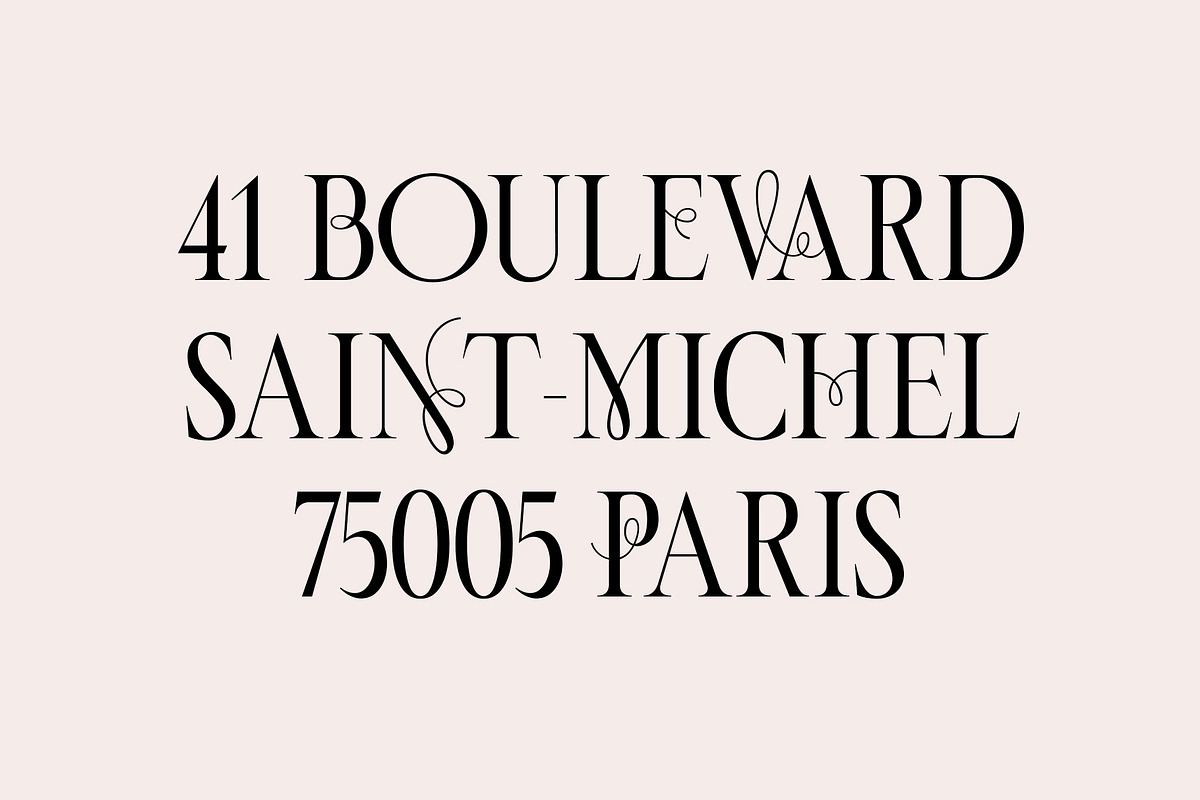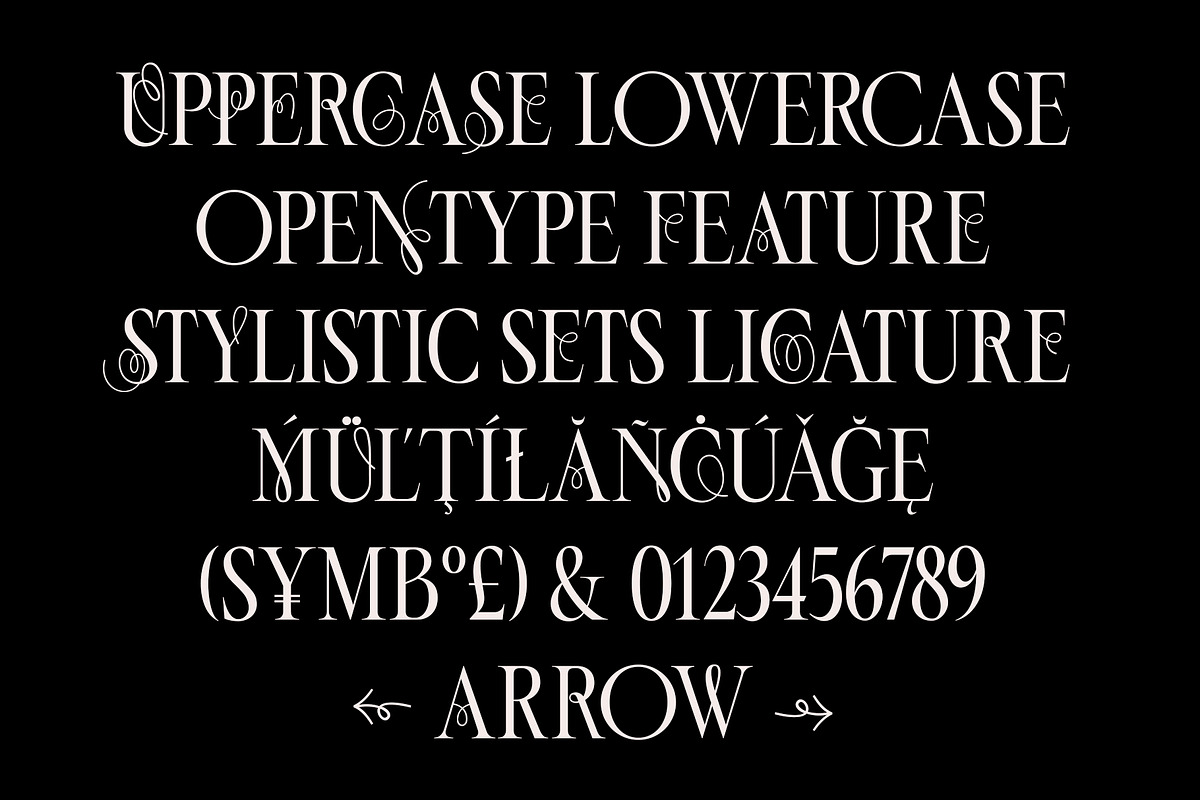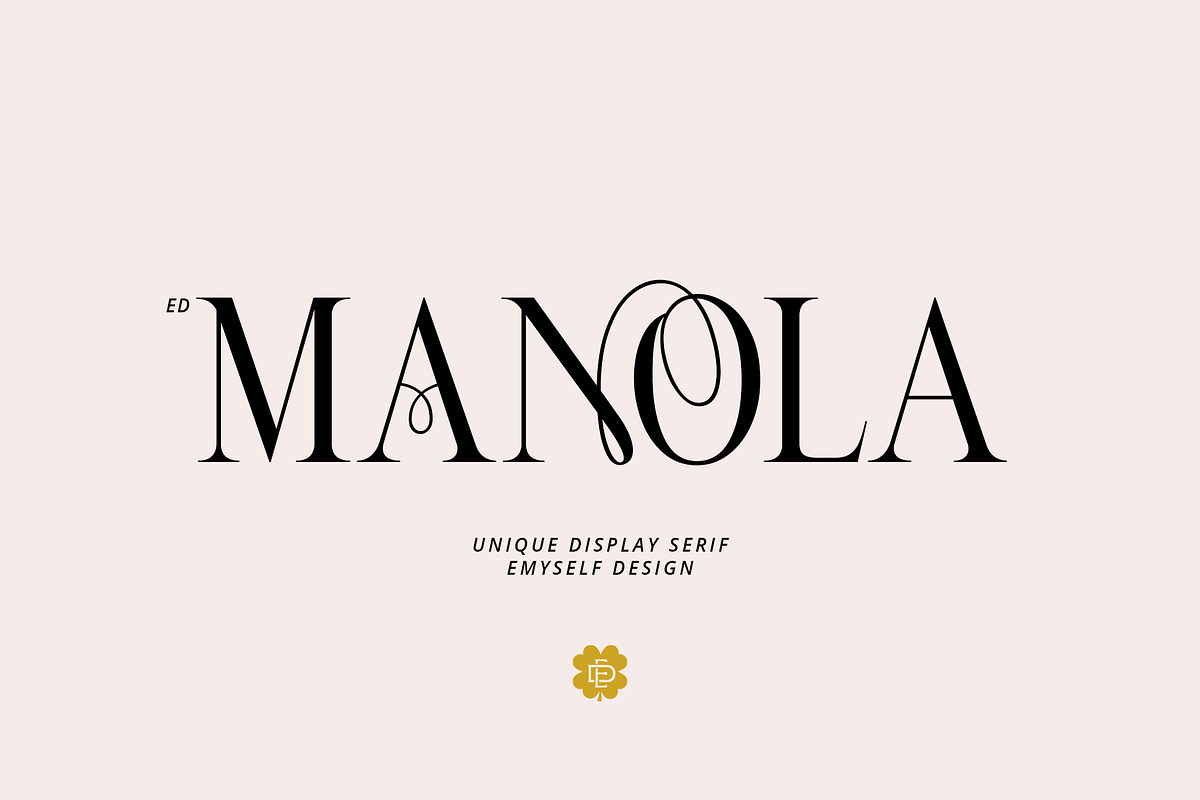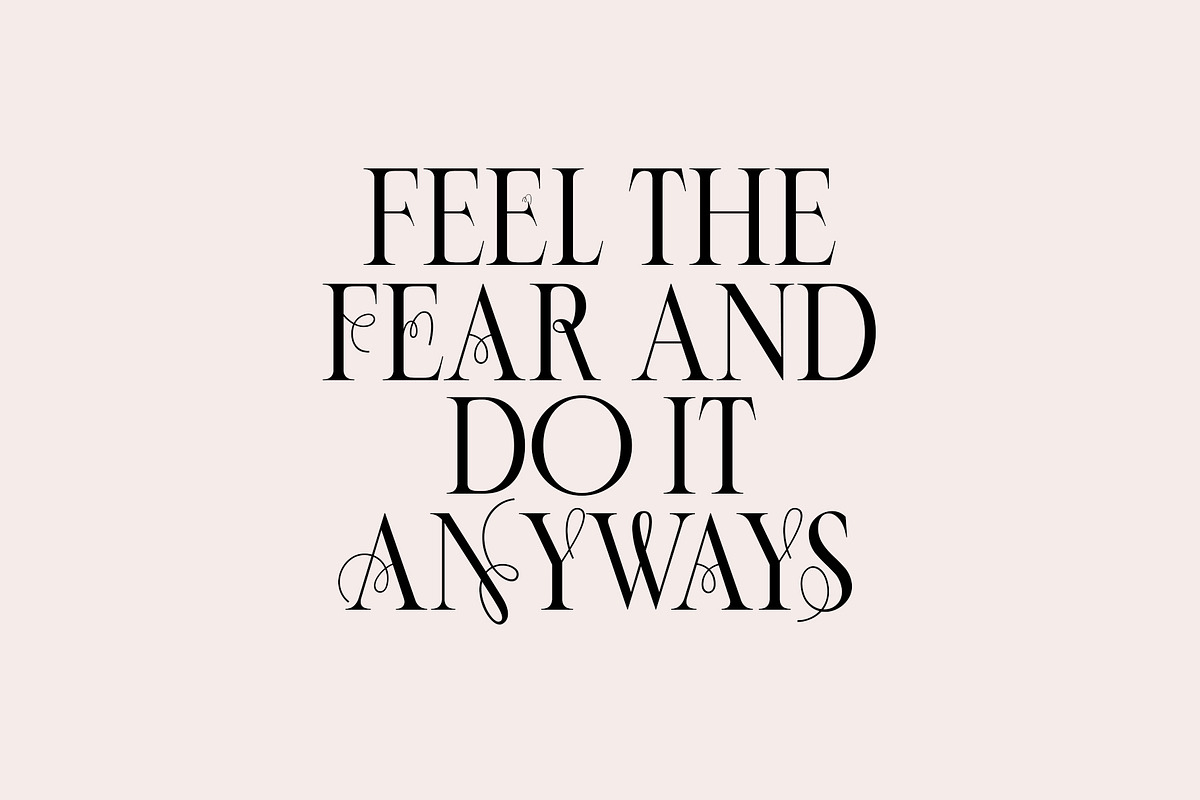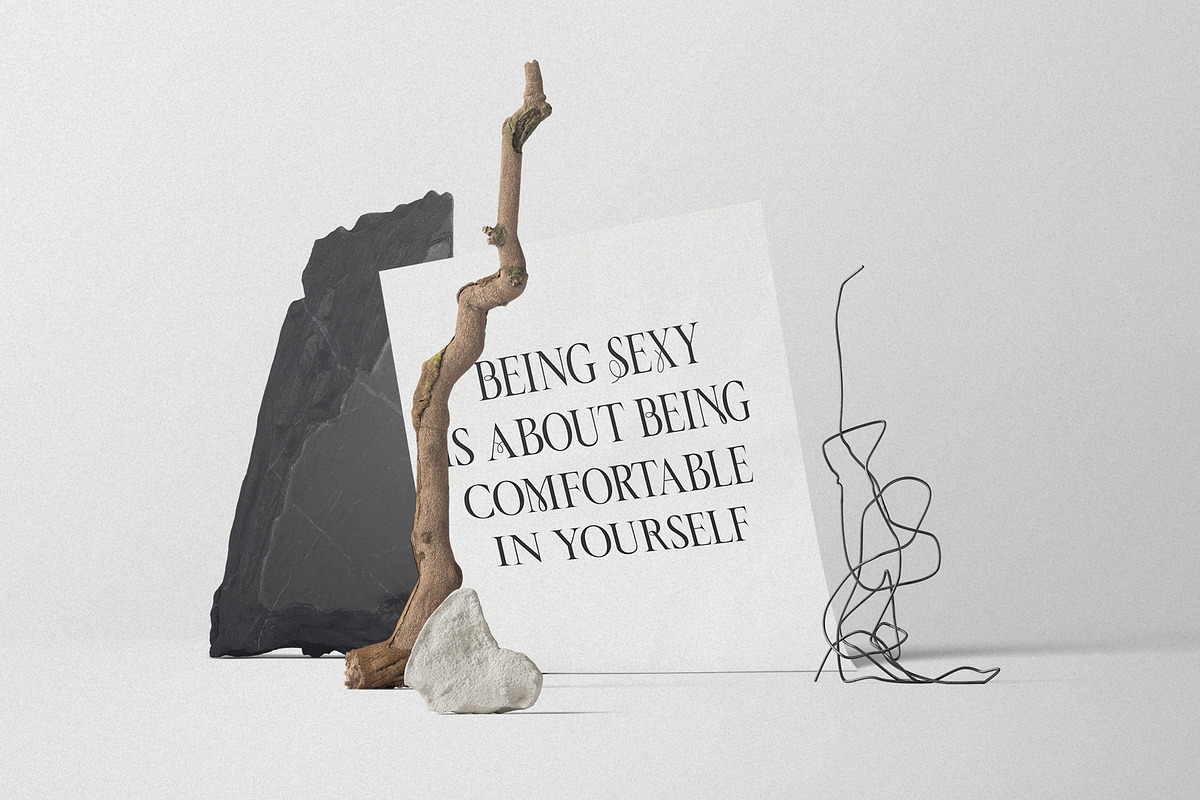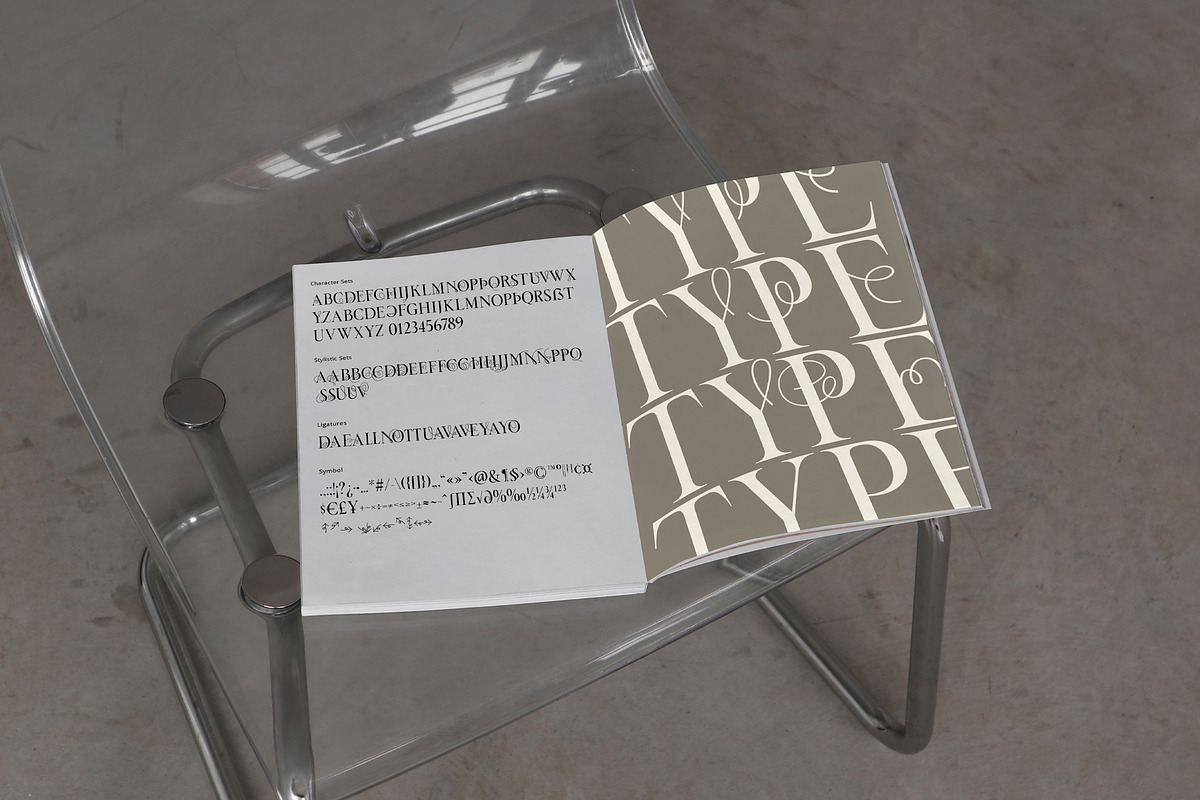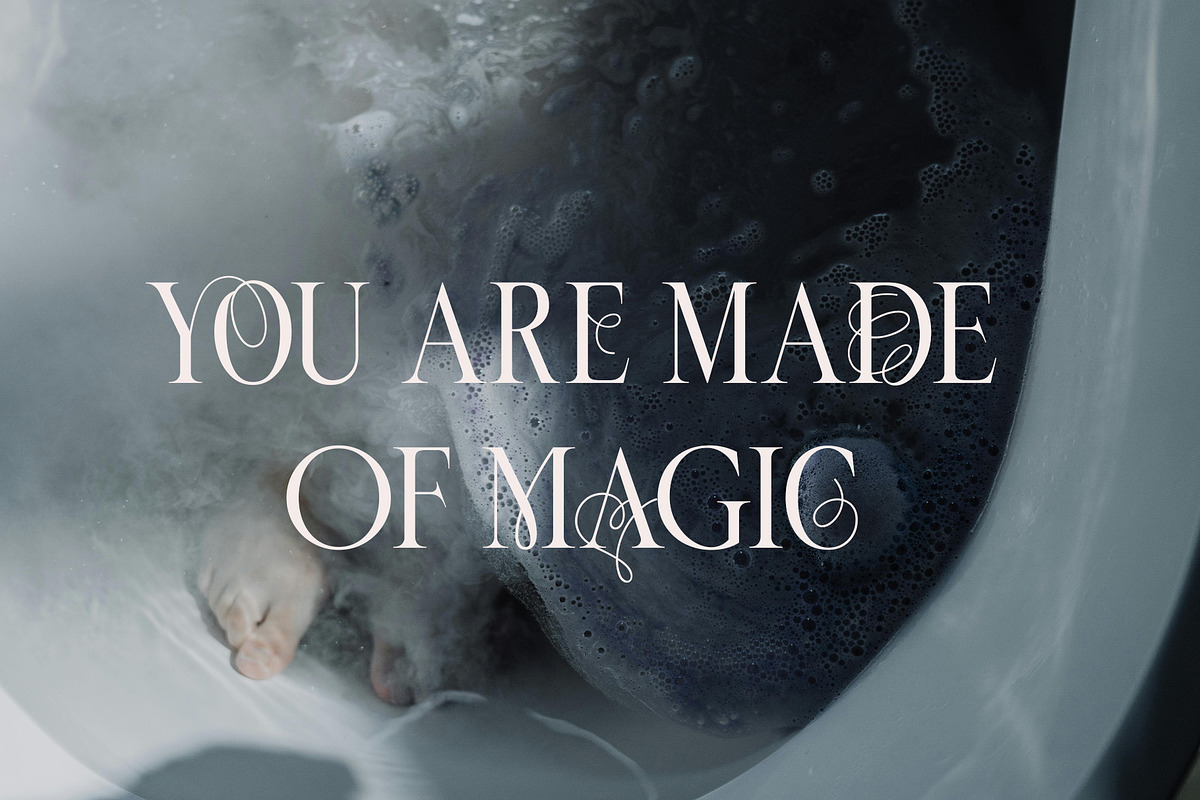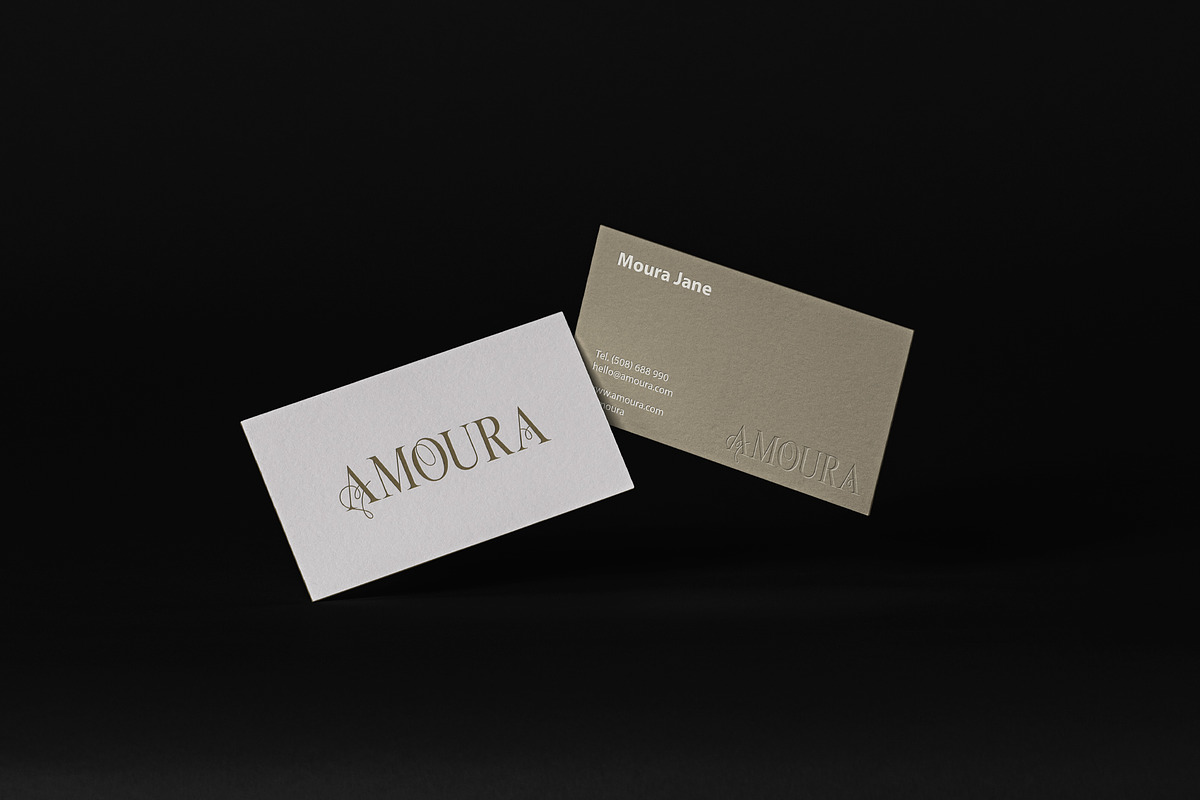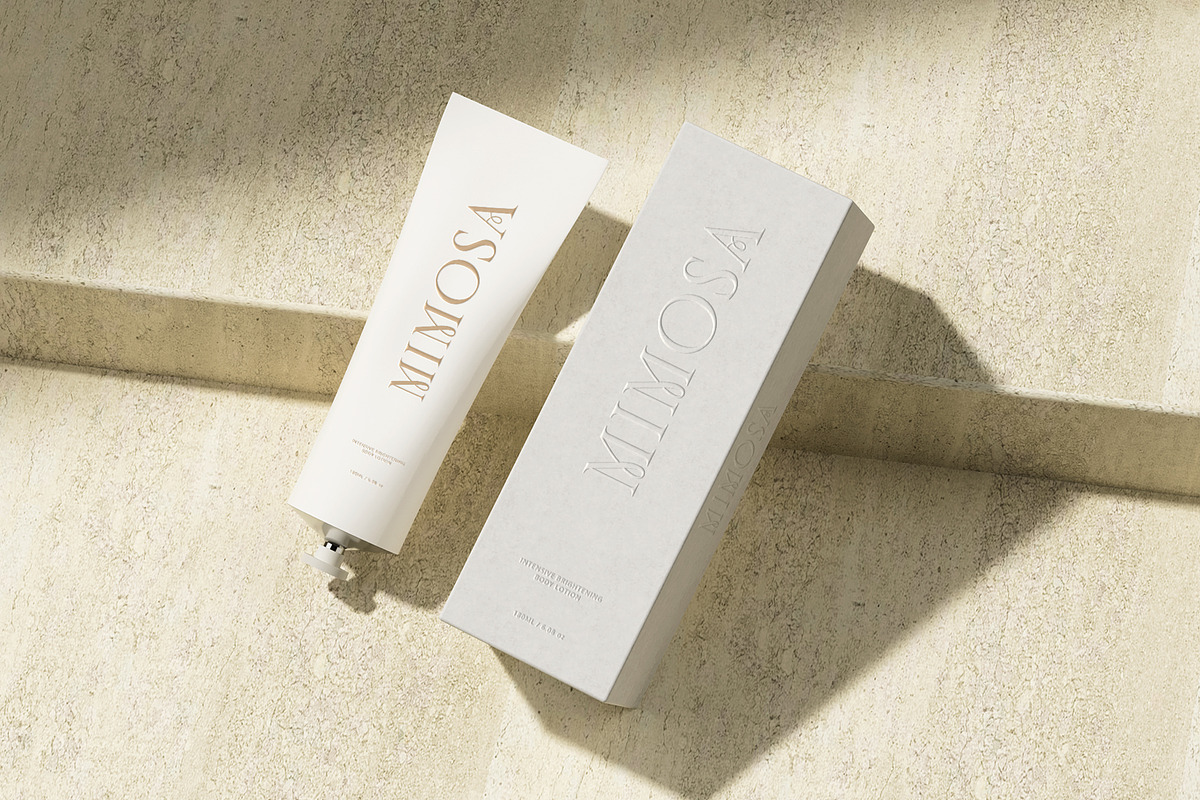
ED Manola - Unique Serif
Manola is a unique serif display font that has an elegant, modern, and fun impression, which makes this font easy to combine with other fonts and can be used in various designs. Manola has the appearance of uppercase letters where the difference lies in the style of the letters, whereas the uppercase group has styled letters that can be combined with the lowercase group of letters.
Apart from that, this font is also equipped with OpenType features such as Ligature, Stylistic sets, and multi-language support. This font is perfect for your design needs such as branding products, magazines, books, posters, packaging designs, logos, social media designs, t-shirts, and more.
- Total Glyph: 436
- Punctuation and Marks
- Stylistic set & Ligatures